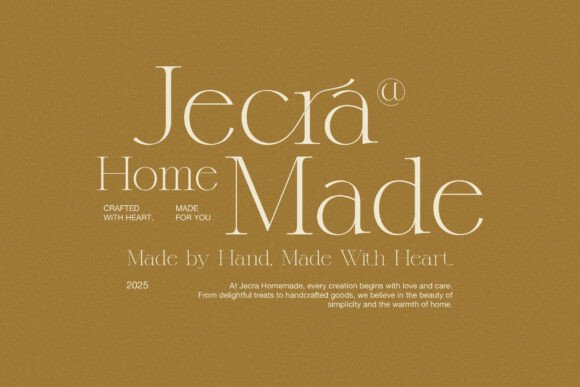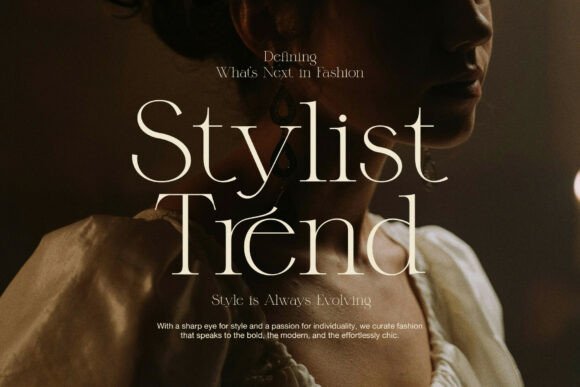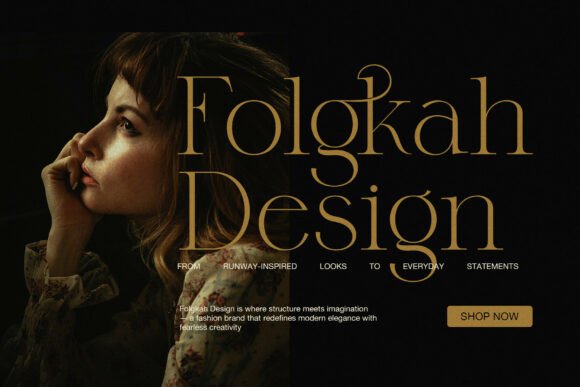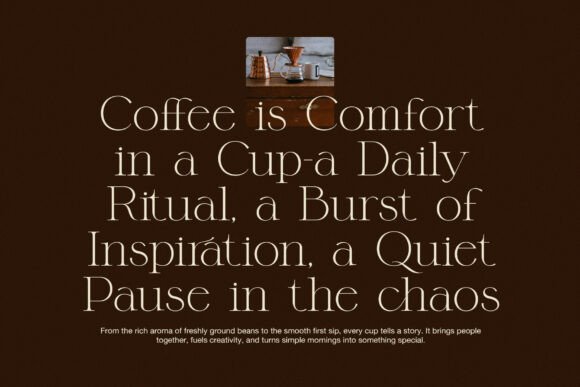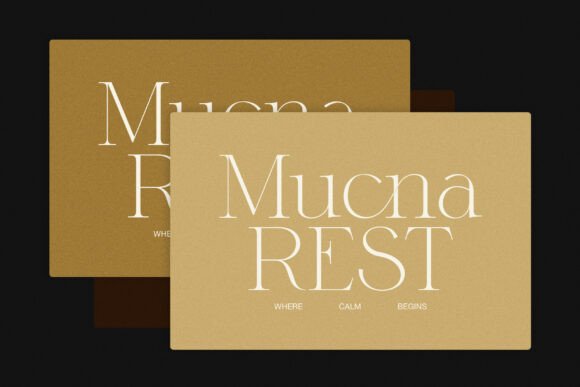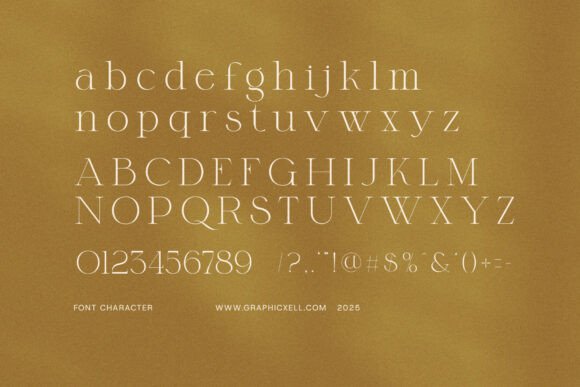
Introduction to Maghire Font
Have you ever stumbled upon a design project that just clicks, and you can’t help but feel a rush of inspiration? For designers, this feeling is what drives us to create something truly special. It’s the moment when all the pieces fall into place, and the design starts to shine. For those who crave this feeling, we’re excited to introduce the Maghire Font – a stylish and timeless typeface that’s about to become your new go-to design resource.
With its clean proportions and elegant curves, the Maghire Font adds a touch of sophistication to any visual project. Whether you’re working on a high-end product packaging or a fashion campaign, this font ensures every layout looks polished and refined. And the best part? It’s available for free download, making it an accessible high-quality design asset for any creative project.
Key Features of Maghire Font
- High-quality design resource for creative projects, ideal for digital art and graphics.
- Features a transparent background, making it perfect for use in designs with complex backgrounds.
- Includes a range of glyphs and characters, suitable for use in a variety of creative projects.
- Designed with high resolution in mind, with a resolution of 300 DPI for optimal print quality.
- Available in a single font size, but can be easily scaled and resized to suit different design needs.
- Perfect for use in digital designs, including logos, graphics, and typography, due to its high-quality design and transparent background.
Honest Review: Maghire Font
As a designer, I’m always on the lookout for high-quality design resources to enhance my creative projects. Recently, I had the chance to work with the Maghire Font, and I’m excited to share my honest review with you.
Here are some of the things that worked well for me: ✨
- Beautiful, modern design aesthetic
- Highly legible, even on small screens
- Works seamlessly with a transparent background, adding an extra layer of professionalism to my designs
- Not ideal for projects requiring extreme font customization
- May not be suitable for very large-scale designs, where clarity can be compromised
Overall, I’m impressed with the Maghire Font. It’s a solid addition to any designer’s toolkit, and I appreciate the fact that it’s available for free download. With its modern design and high-quality performance, it’s a great choice for a wide range of creative projects.
Tips for Getting the Most Out of Maghire Font
The Maghire Font is ideal for creative projects such as logo designs, infographics, and social media graphics. Its high-quality design and free download make it a popular choice among designers and artists.